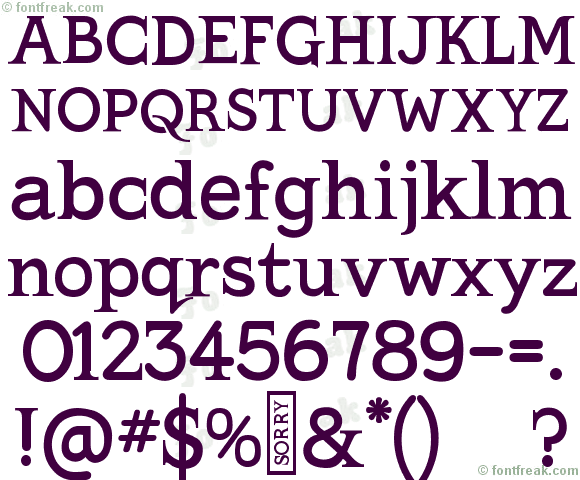
Kingthings Serifique
About Kingthings Serifique
Kingthings Serifique is a captivating serif font designed by Kevin King, released under a freeware license in 2008. This font stands out with its elegant and refined characteristics, making it a versatile choice for various design projects. The font features a medium stroke weight with a harmonious contrast, providing a balanced visual appeal. The well-considered spacing enhances readability while maintaining a sophisticated look, making it suitable for both digital and print applications.
The visual style of Kingthings Serifique combines traditional serif elements with a modern twist. Its decorative flourishes and unique terminal shapes add a touch of personality, making it ideal for creative endeavors. This font is particularly well-suited for wedding invitations, where its elegance can convey the significance of the occasion. Additionally, it works beautifully for restaurant menus, adding a touch of class to the dining experience. Graphic designers may also find it perfect for branding projects, as it can help establish a unique identity for small businesses. Furthermore, content creators looking to elevate their presentations or social media graphics can leverage this font's charm to capture attention.
Targeted toward graphic designers, small business owners, and content creators, Kingthings Serifique offers an exceptional solution for those seeking a sophisticated yet approachable typeface. Its versatility allows it to adapt to various styles and themes, making it a valuable addition to any designer's toolkit.
Author Kevin King